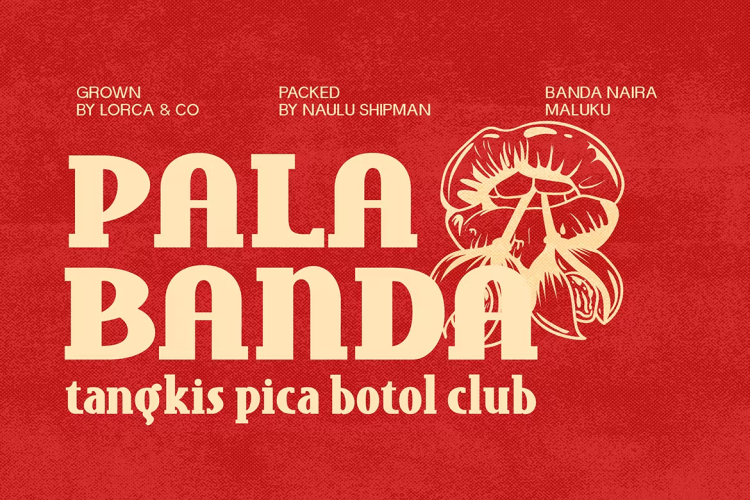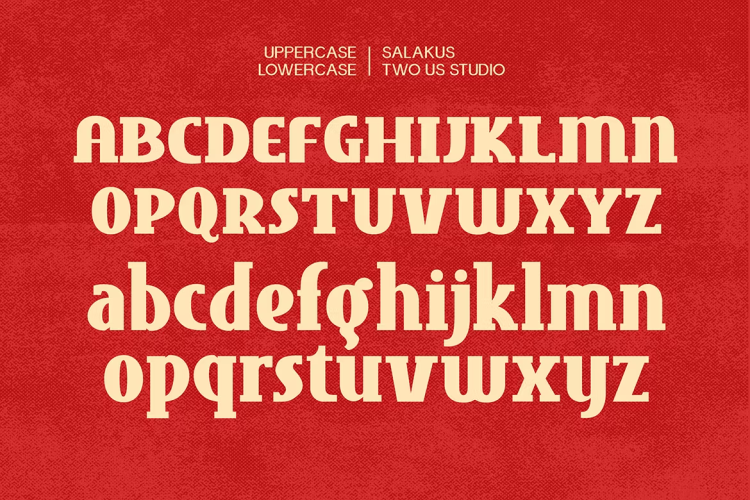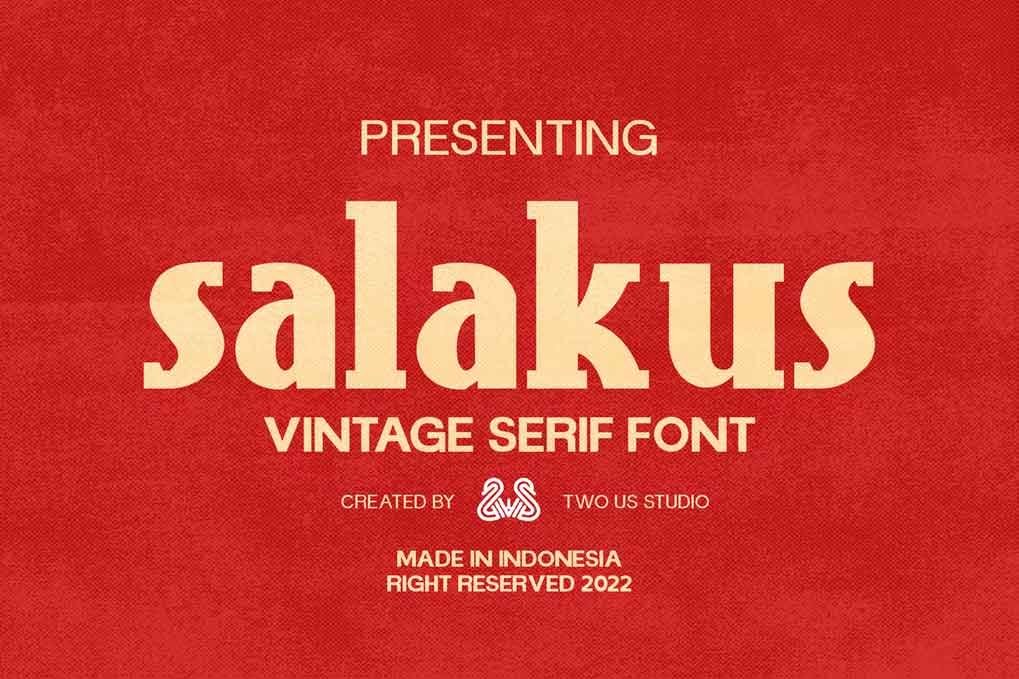
Salakus Vintage Font
Salakus – Vintage Serif Typeface
Unique Typeface Font Salakus for your personal or business purpose come with 4 different style, (Thin,Regular,Bold,Black)
Where Salakus Vintage Font works best
Reports, white papers and book interiors hold the eye longer when the text face has real serifs; Salakus Vintage Font keeps that rhythm without looking old-fashioned.
Food, spirits and cosmetics brands lean on serif wordmarks to suggest age and care. Salakus Vintage Font gives that signal at wordmark size.
Set Salakus Vintage Font for the body of an award or a diploma and keep the recipient name in a script; the pairing is what makes a document feel official.
What kind of work does Salakus Vintage Font suit?
It sits in the Serif Fonts group and reads as bold, professional, serif, serif fonts. That makes it a candidate wherever those qualities help: headings, packaging, social graphics and brand work. Set it at the size you plan to use before deciding.